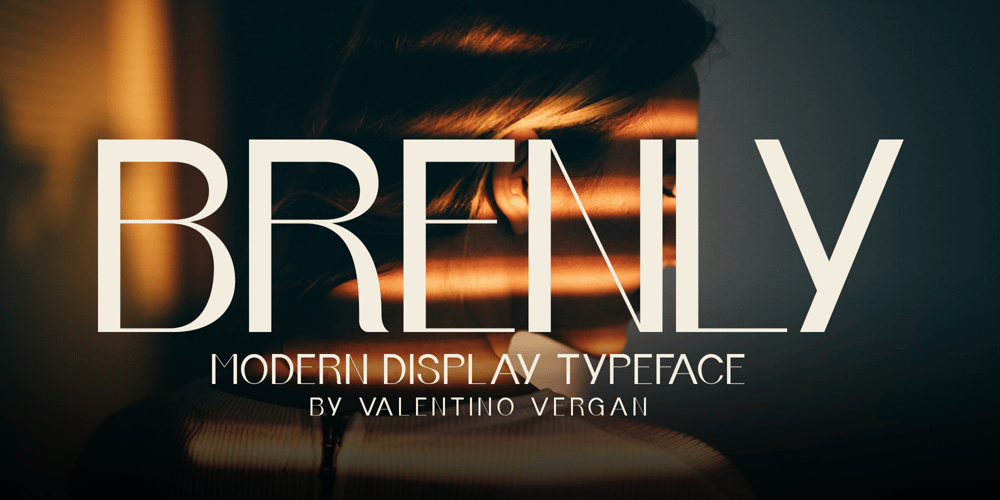
Brenly Font Family was designed by Martin Katibi and published by Valentino Vergan. Brenly contains 4 styles and family package options. Brenly is a modern variable sans serif font. Brenly has a unique and elegant look which makes it perfect for designing posters, brand packages & logos. Brenly also has a variable version, which makes it easy to manually adjust the slant from oblique to reversed oblique.If you are looking for something modern and unique for your next project, Brenly is the font for you.